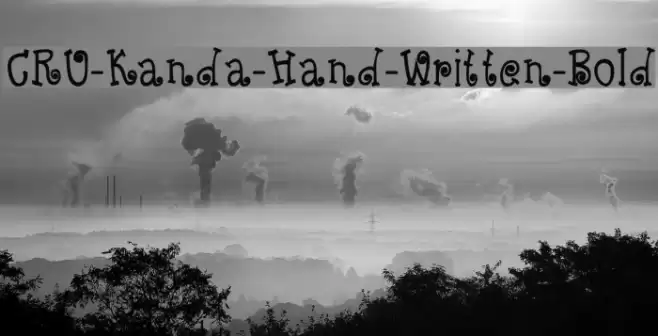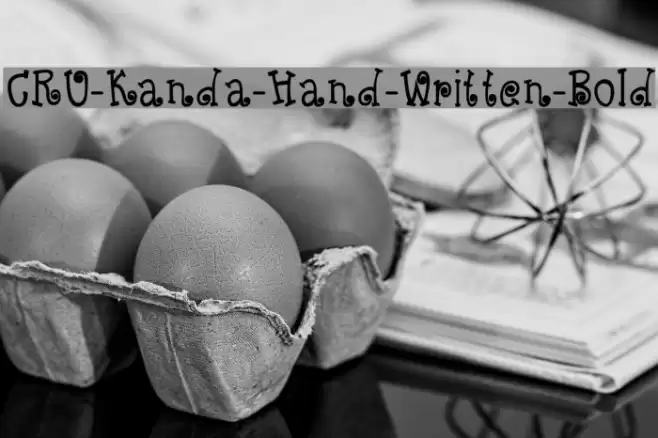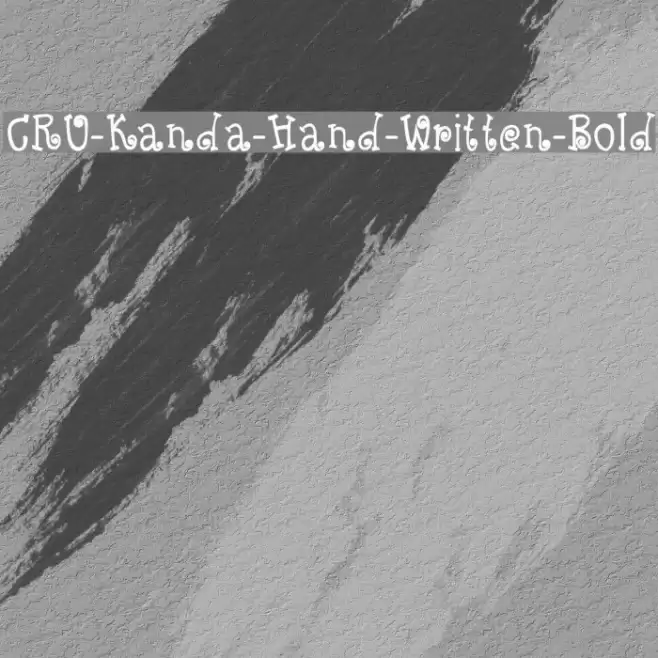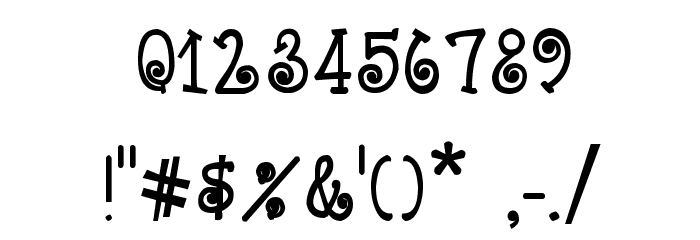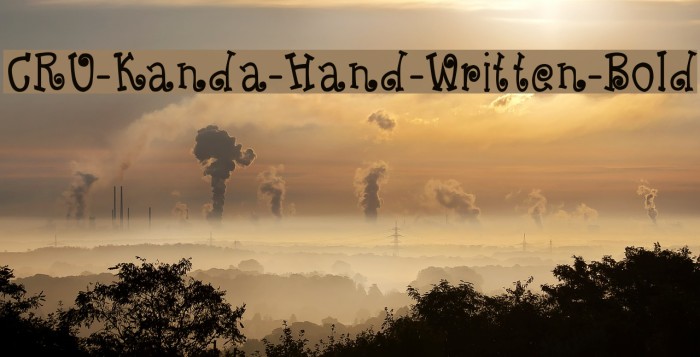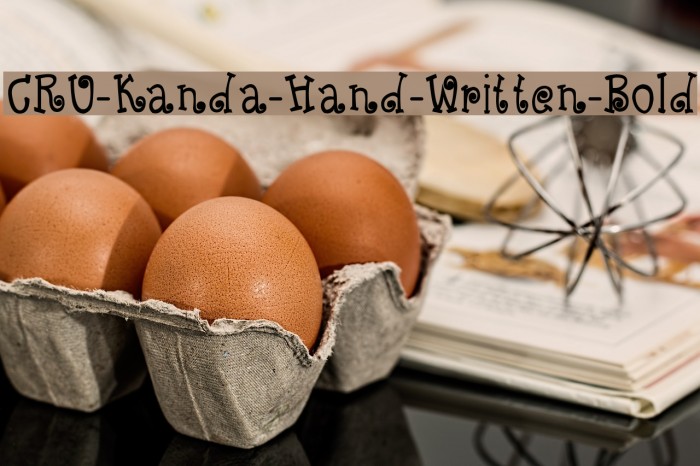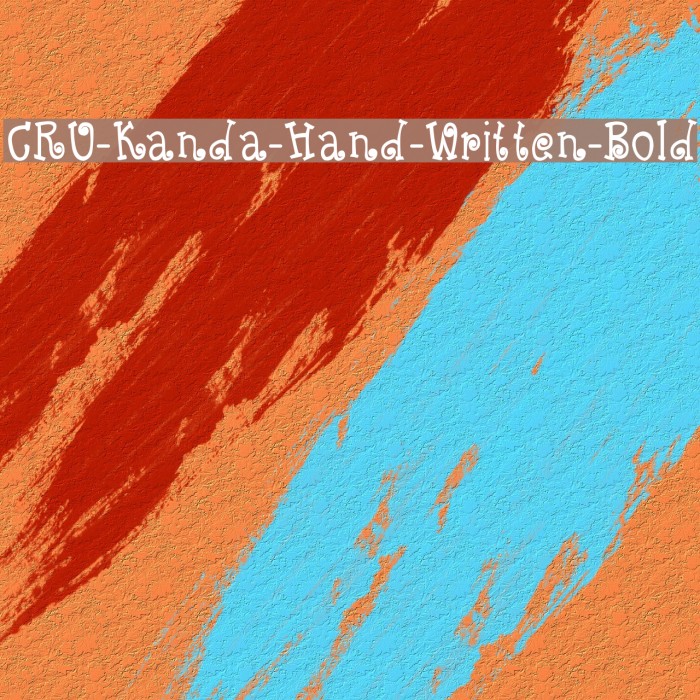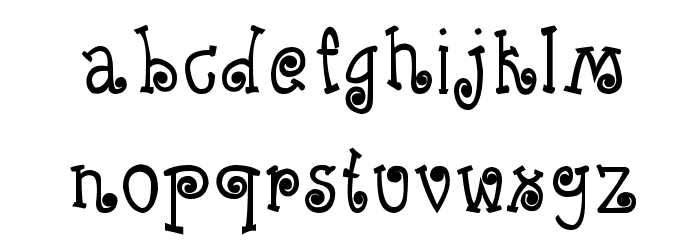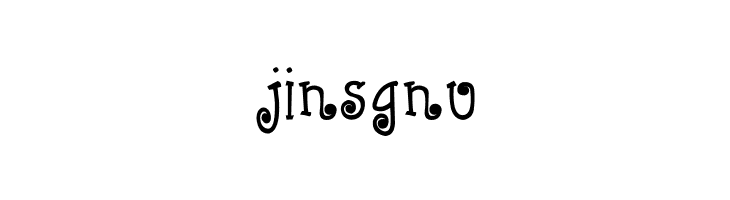
CRU-Kanda-Hand-Written-Bold Font
CRU-Kanda-Hand-Written-Bold Description
This font features a whimsical and playful design with a hand-drawn aesthetic. Each character is uniquely crafted with swirls and curls, giving it a lively and animated appearance. The uppercase letters are bold and prominent, while the lowercase letters maintain a consistent style with a slightly more compact form. Numbers and special characters are equally expressive, maintaining the font's overall quirky theme. The font's bold strokes and decorative elements make it stand out, ideal for creative and fun projects.
A bold, whimsical hand-drawn font with playful swirls and curls from Uncategorized fonts.
- Proposed Projects: Ideal for children's books, playful branding, greeting cards, and creative posters.
- Overall Style: Playful, Whimsical, Hand-drawn